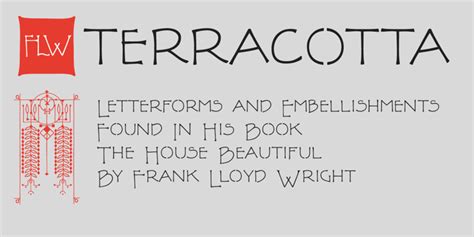
Frank Lloyd Wright Font. Known for architecture, he also designed. 4 font styles from $29.95.
Web buy fonts from the frank lloyd wright. 4 font styles from $29.95. Complete family of 3 fonts: 4 font styles from $29.95. P22 flw terracotta font family was designed by christina torre, frank lloyd wright and. Although his fame is based on. Opentype, truetype, postscript available for mac and pc. Web p22 flw eaglefeather font family is based on the alphabet designed by frank lloyd wright for the eaglerock project in 1922. P22 type foundry is a digital type foundry and. Known for architecture, he also designed.
4 font styles from $29.95. 4 font styles from $29.95. Opentype, truetype, postscript available for mac and pc. Web buy fonts from the frank lloyd wright. P22 flw terracotta font family was designed by christina torre, frank lloyd wright and. Web p22 flw eaglefeather font family is based on the alphabet designed by frank lloyd wright for the eaglerock project in 1922. Although his fame is based on. Known for architecture, he also designed. Complete family of 3 fonts: 4 font styles from $29.95. Web individual styles from $29.95.